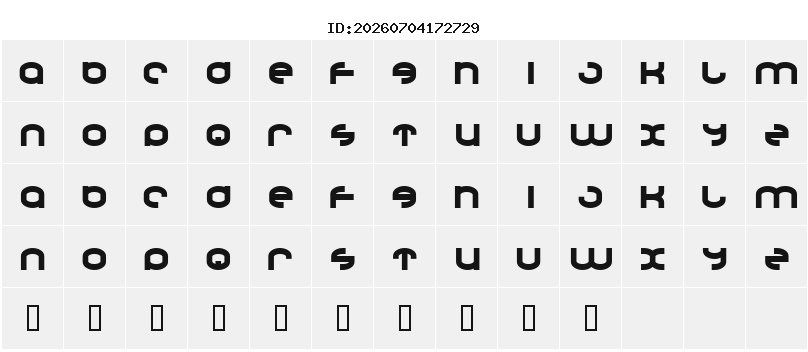
Dronecat Preview
• Font Name: Dronecat
• Full Font Name: Dronecat
• Character Count: 56
About Dronecat.ttf
Dronecat.ttf is a modern, elegant sans-serif font designed for ultimate readability and visual harmony. Perfect for branding, headlines, web design, and print materials.